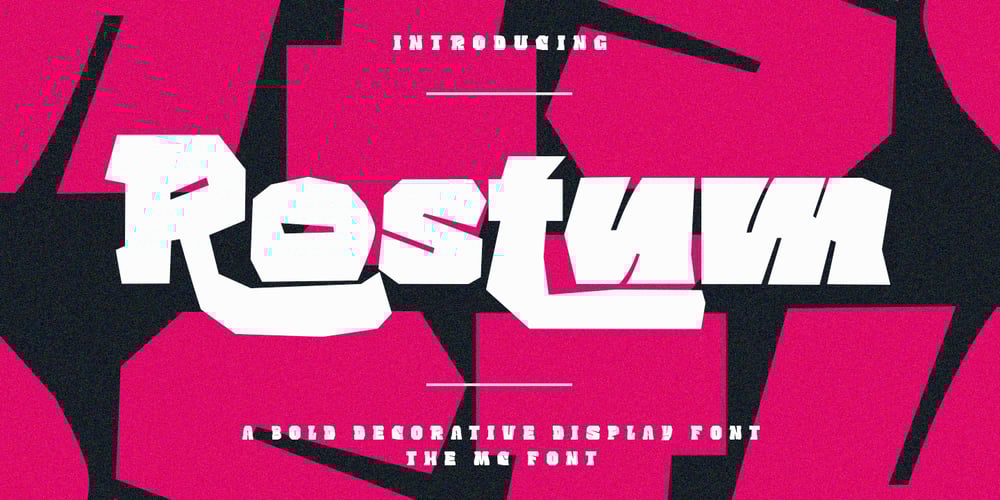
MC Rostum
MC Rostum font
MC Rostum Font Family was designed by Gilang Maulana and published by Maulana Creative. MC Rostum contains 1 styles and family package options. Rostum is a bold decorative display font. Heavy stroke, fun character with a bit of ligatures. To give you an extra creative work. Rostum sans serif font support multilingual more than 100+ language. This font is good for logo design, Social media, Movie Titles, Books Titles, a short text even a long text letter and good for your secondary text font with script or serif. Make a stunning work with Rostum sans serif font.